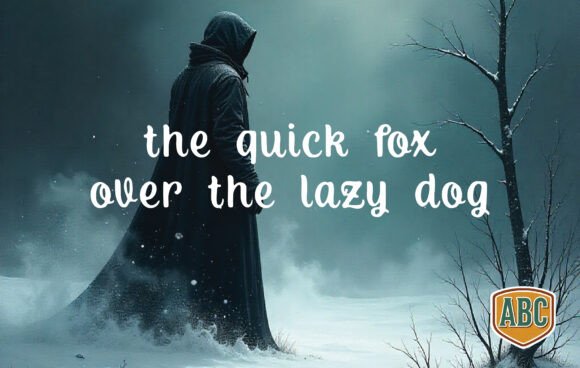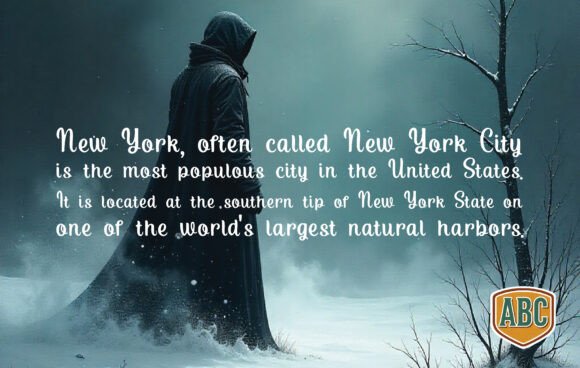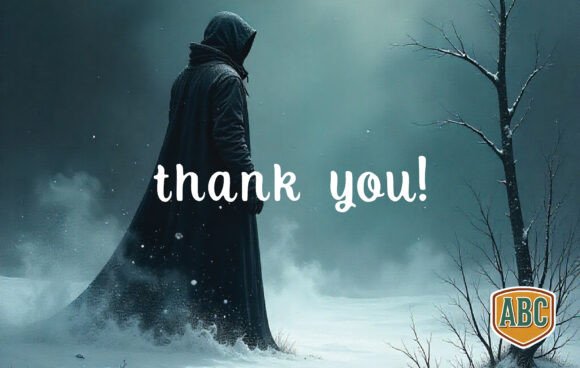
Frosty Magic Font: A Timeless Handwritten Font for Stunning Designs
Are you looking for a font that can add a touch of magic to your designs? Look no further than Frosty Magic, a lovely and timeless handwritten font that’s perfect for creating eye-catching logos, branding, and quotes. With its unique and beautiful touch, Frosty Magic is sure to make your design come alive!
What Makes Frosty Magic Special?
Frosty Magic is a carefully crafted handwritten font that’s designed to bring a touch of elegance and sophistication to your designs. Every letter has a unique and beautiful touch, which sets it apart from other fonts. The font’s flowing lines and delicate curves make it perfect for creating stunning wedding stationery, journals, greeting cards, product packaging, and social media designs.
Frosty Magic is a versatile font that’s perfect for designers and crafters who want to add a personal touch to their work. Whether you’re creating a logo, branding materials, or social media graphics, Frosty Magic is the perfect choice. The font’s elegant and sophisticated style makes it perfect for a variety of design projects, including:
- Wedding stationery: Create beautiful wedding invitations, save-the-date cards, and thank-you notes with Frosty Magic.
- Journals and planners: Add a touch of elegance to your journals and planners with Frosty Magic.
- Greeting cards: Create stunning greeting cards for special occasions with Frosty Magic.
- Product packaging: Add a personal touch to your product packaging with Frosty Magic.
- Social media designs: Create eye-catching social media graphics with Frosty Magic.
Why Choose Frosty Magic?
There are many reasons why Frosty Magic is the perfect choice for designers and crafters. Here are just a few:
- Unique and beautiful touch: Every letter in Frosty Magic has a unique and beautiful touch that sets it apart from other fonts.
- Elegant and sophisticated style: Frosty Magic has an elegant and sophisticated style that’s perfect for a variety of design projects.
- Versatile: Frosty Magic is a versatile font that can be used for a variety of design projects, from logos and branding to social media graphics.
- Easy to read: Frosty Magic is easy to read, making it perfect for designs that require a lot of text.
Tips for Using Frosty Magic
Here are a few tips for using Frosty Magic in your designs:
- Use it sparingly: Frosty Magic is a beautiful font, but it can be overwhelming if used too much. Use it sparingly to add a touch of elegance to your designs.
- Pair it with other fonts: Frosty Magic pairs well with other fonts, such as sans-serif fonts. Experiment with different font combinations to find the perfect look for your design.
- Experiment with colors: Frosty Magic looks great in a variety of colors. Experiment with different colors to find the perfect look for your design.
Frosty Magic is a lovely and timeless handwritten font that’s perfect for designers and crafters who want to add a touch of magic to their designs. With its unique and beautiful touch, elegant and sophisticated style, and versatility, Frosty Magic is the perfect choice for a variety of design projects. Whether you’re creating a logo, branding materials, or social media graphics, Frosty Magic is sure to make your design come alive!